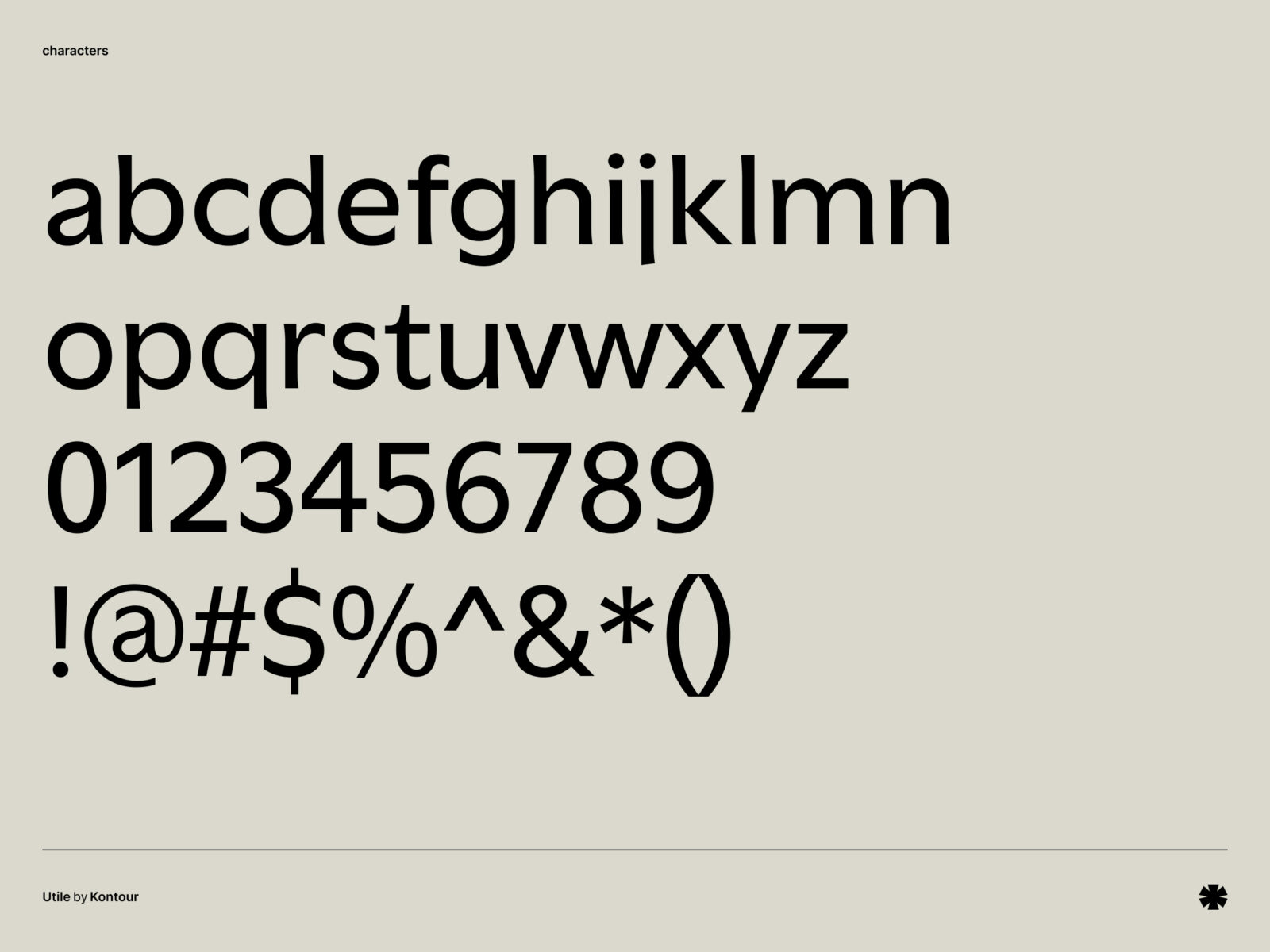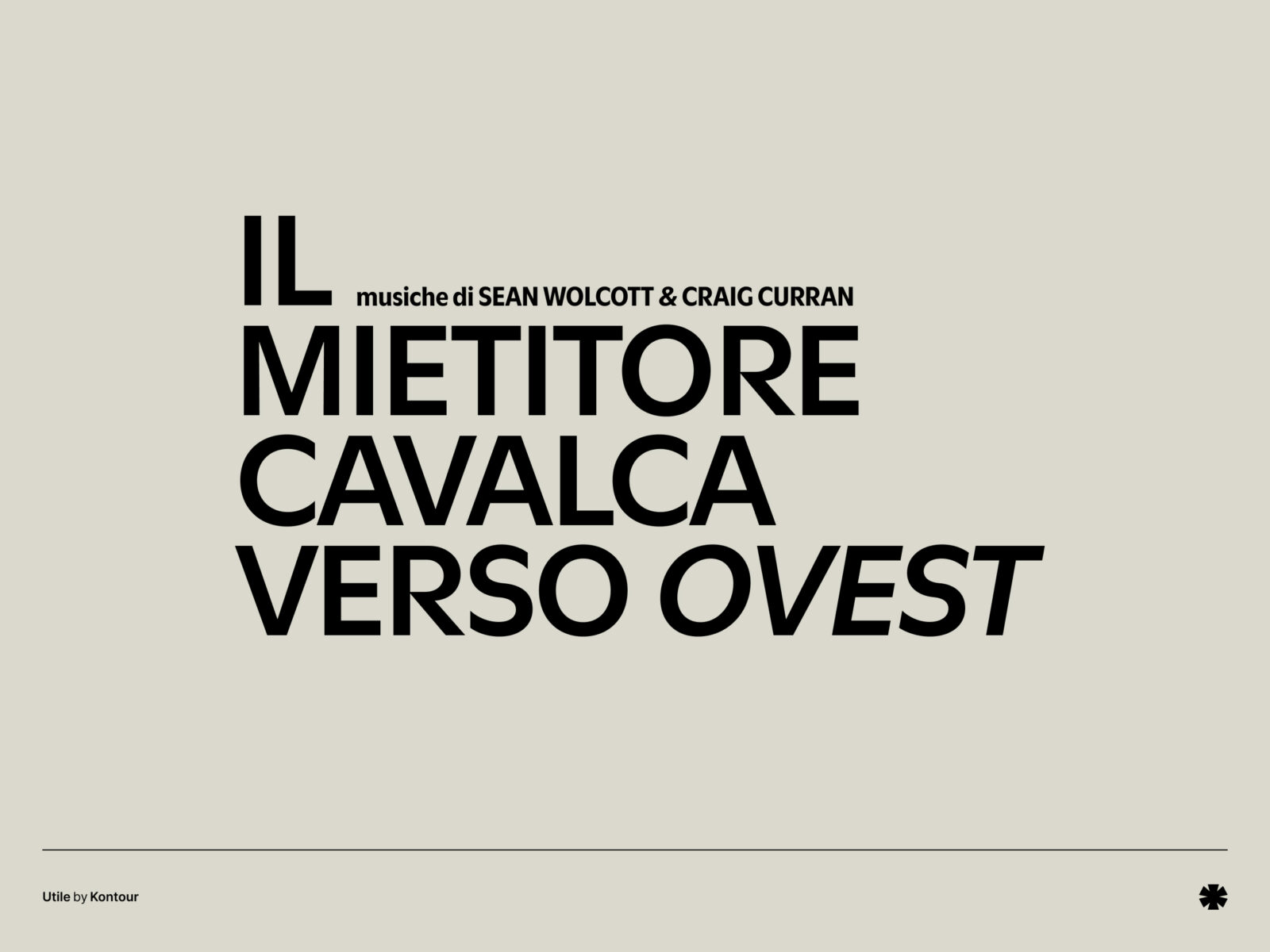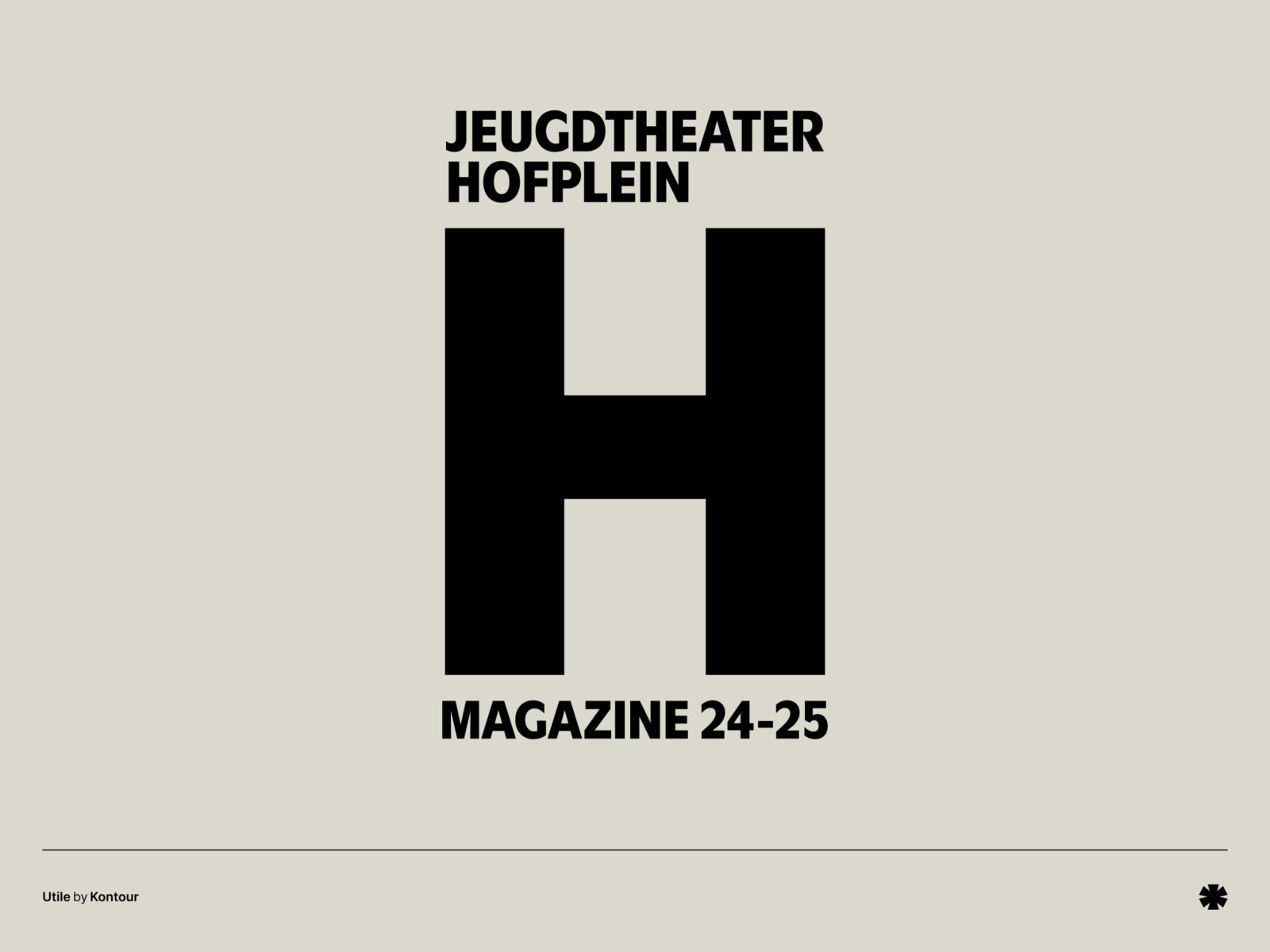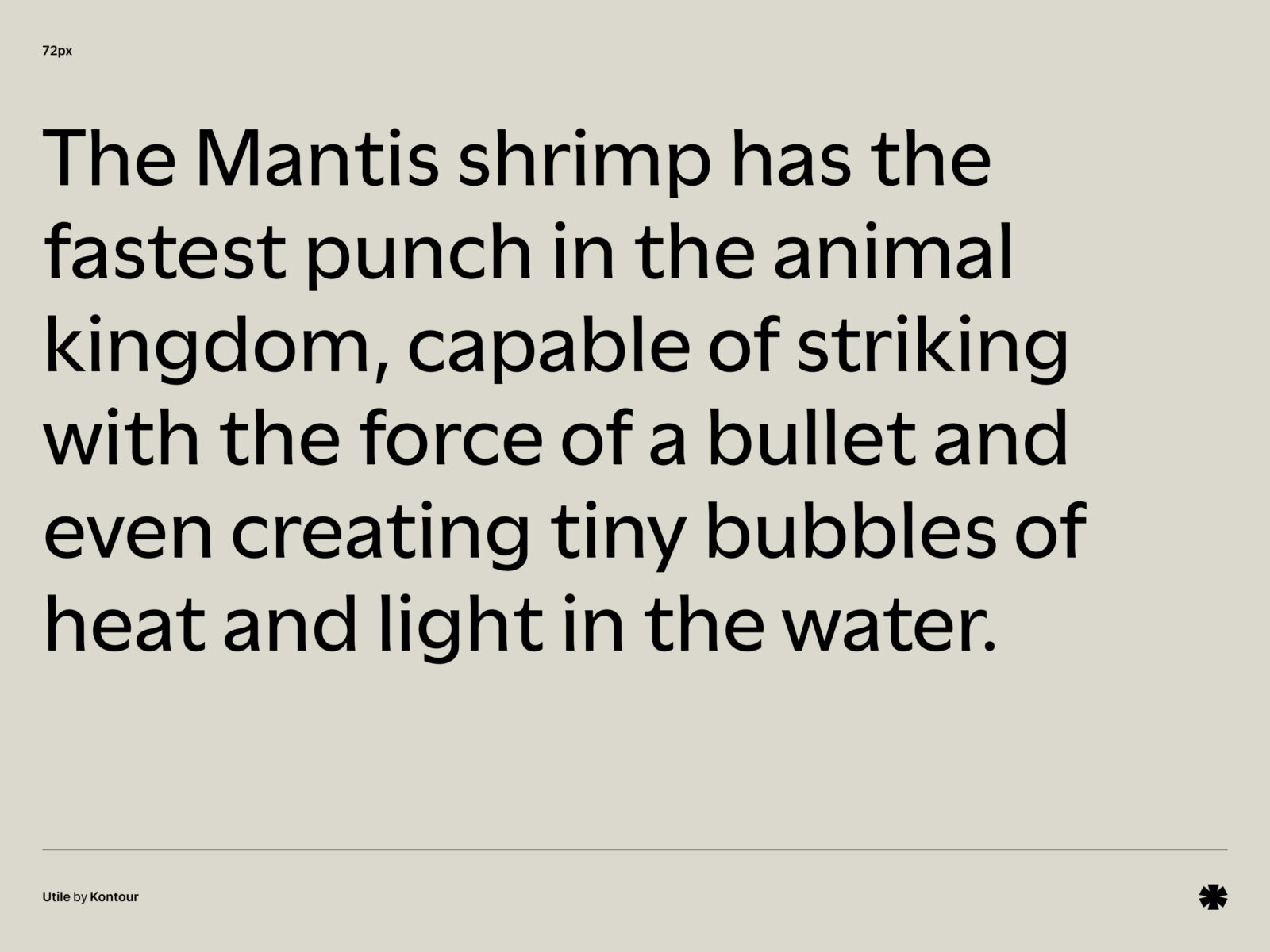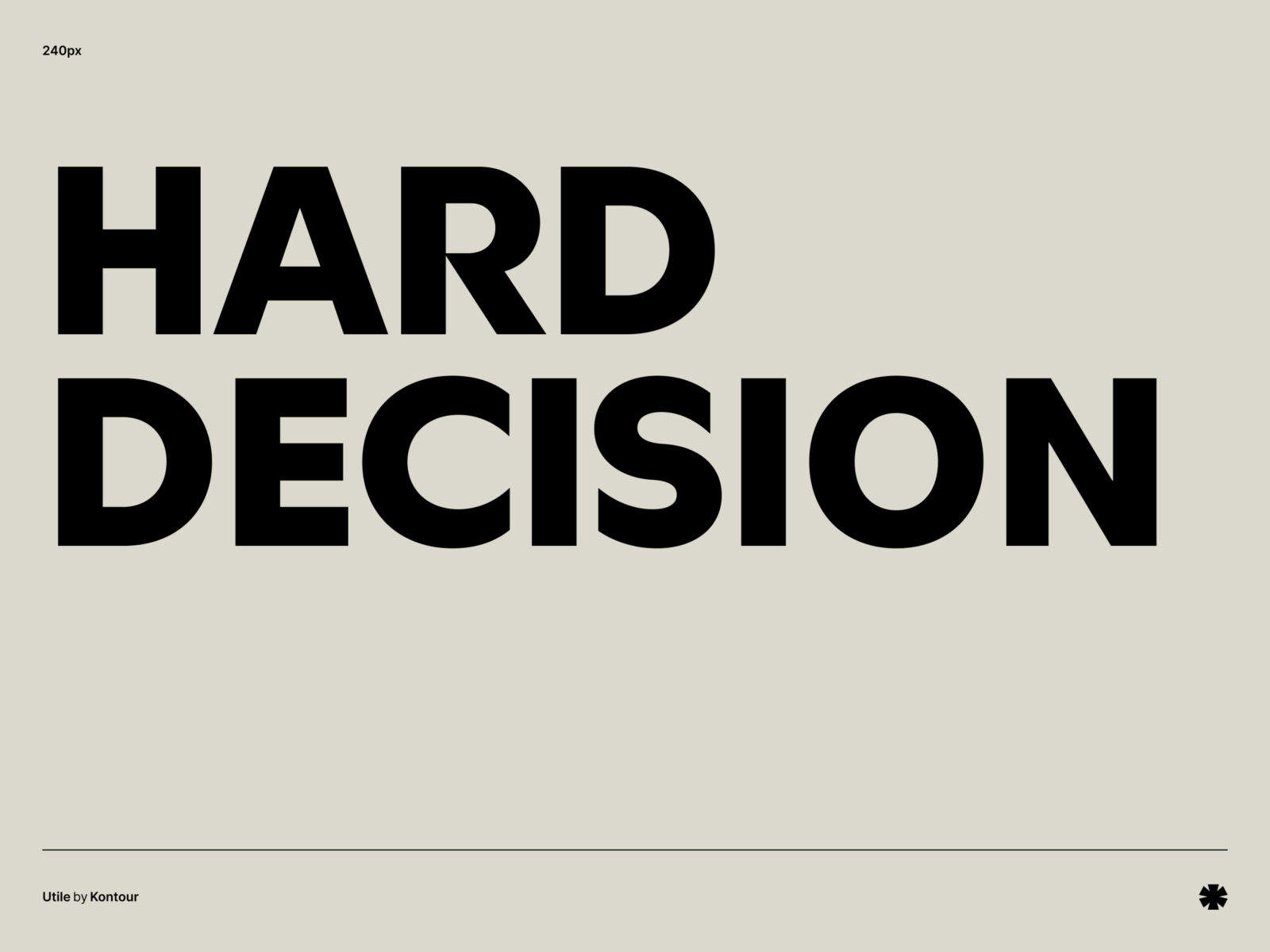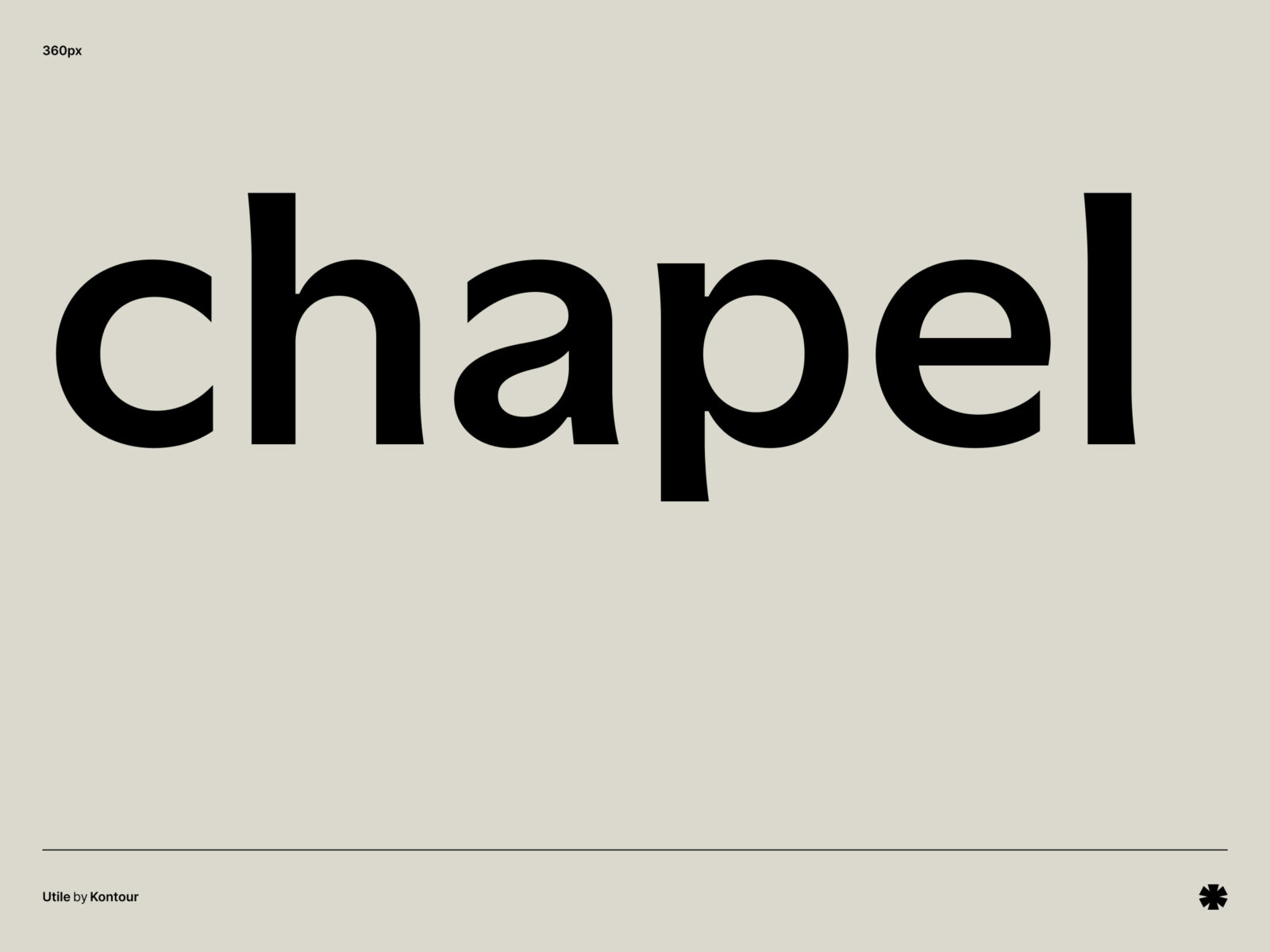
Utile is an elegantly flared sans-serif typeface designed for superb legibility. Balancing classic influences with modern clarity, it's perfect for branding, editorial and advertising.